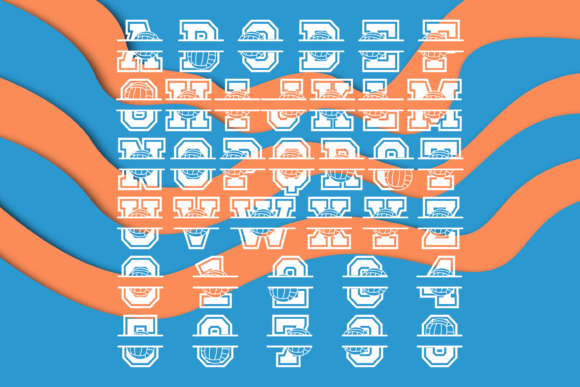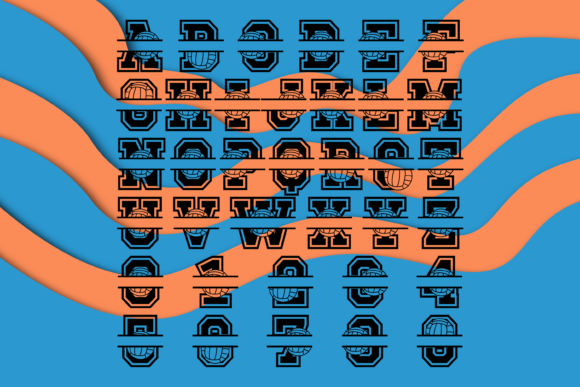
Discover the Charm of Block Font: Elevate Your Designs with a Timeless Classic
Are you on the hunt for a font that adds a touch of personality to your designs, crafts, or creations? Look no further than Block Font, an incredibly cool decorative font that’s about to become your new favorite. Whether you’re a designer, crafter, or DIY enthusiast, Block Font is an amazing choice for anyone looking to add a lovely touch to their projects.
What is Block Font?
Block Font, also known as block lettering or block printing, is a style of font characterized by its bold, rectangular letterforms. Each letter is designed to resemble a block of text, with clean lines, sharp edges, and a sturdy appearance. This font style has been around for centuries, originating from traditional printing techniques used in the early days of publishing.
The Allure of Block Font
So, what makes Block Font so special? Here are just a few reasons why designers and crafters love this font:
- Readability: Block Font is incredibly easy to read, making it perfect for headlines, titles, and short paragraphs of text.
- Versatility: Block Font can be used in a wide range of contexts, from formal to informal, and can be adapted to suit various design styles.
- Aesthetics: The bold, geometric shapes of Block Font give it a unique and attractive appearance that’s sure to grab attention.
Uses for Block Font
Block Font is an incredibly versatile font that can be used in a variety of contexts, including:
- Custom Designs: Use Block Font to create eye-catching posters, flyers, brochures, and other marketing materials.
- DIY Crafts: Add a personal touch to your handmade crafts, such as cards, invitations, and scrapbook pages.
- Signage: Block Font is perfect for creating signs, banners, and displays that need to be easy to read from a distance.
- Digital Art: Use Block Font to add a touch of nostalgia and charm to your digital art, illustrations, and graphics.
Tips for Using Block Font
Here are some tips for getting the most out of Block Font:
- Keep it simple: Block Font works best when used sparingly and in large sizes. Avoid using it for long blocks of text.
- Experiment with colors: Block Font looks great in bold, bright colors. Try experimenting with different hues to add some personality to your designs.
- Mix and match: Combine Block Font with other fonts to create a unique and visually interesting design.
In conclusion, Block Font is an incredibly cool decorative font that’s perfect for designers, crafters, and DIY enthusiasts. With its bold, geometric shapes and clean lines, Block Font is sure to add a lovely touch to any project. Whether you’re creating custom designs, DIY crafts, or just any creation that requires a little extra personality, Block Font is an amazing choice. So why not give it a try and see the difference it can make?